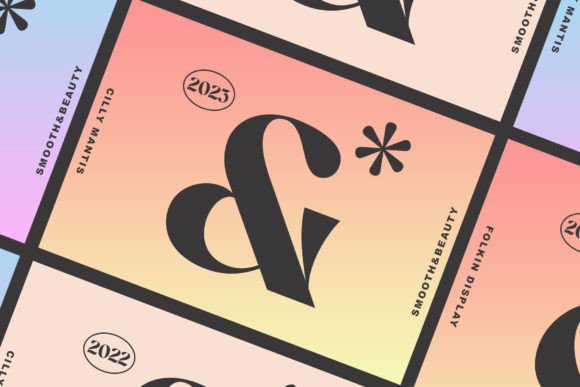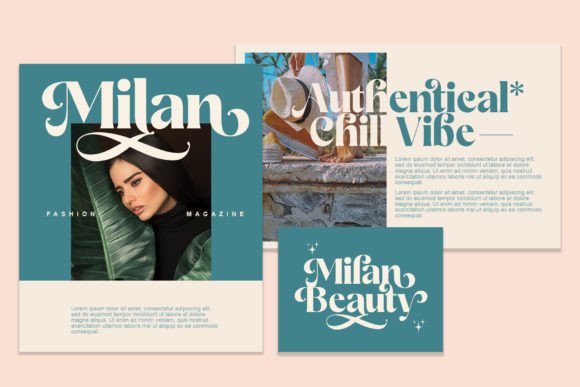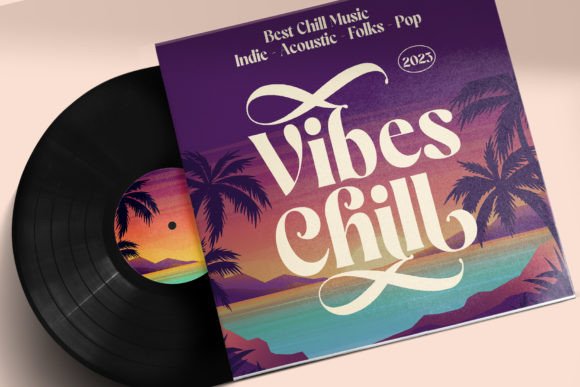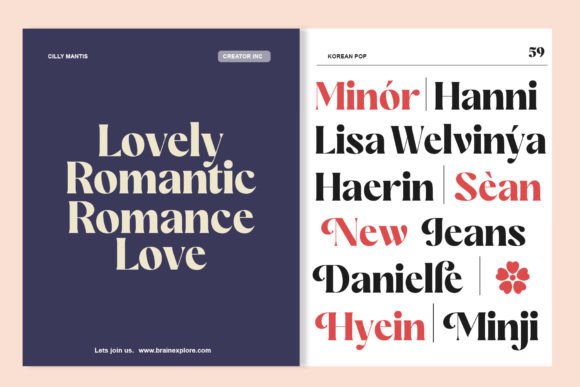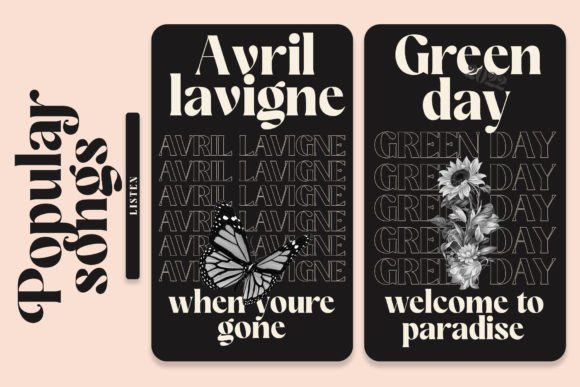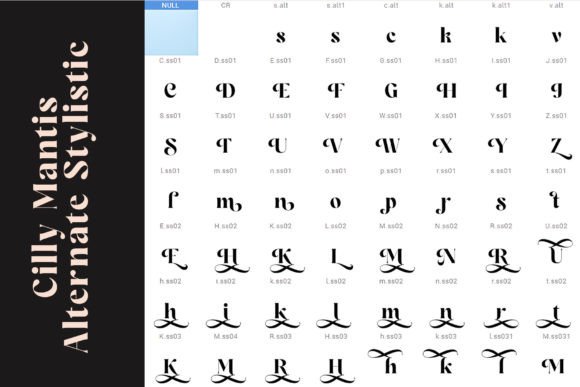
Unleash Your Creativity with the Perfect Font
Have you ever stared at a blank page, struggling to find the perfect font to bring your design to life? We’ve all been there – the blank page staring back at us, taunting us with its emptiness. But what if I told you that there’s a font that can change all that? Introducing the Cilly Mantis Font, a chic serif display font that exudes style and sophistication.
This beautiful font is designed to elevate your modern design projects, from branding to packaging and editorial design. With its clean lines and bold letterforms, Cilly Mantis Font creates a stunning contrast that’s sure to grab attention. Whether you’re a seasoned designer or just starting out, this font is a valuable addition to your toolkit, offering a level of sophistication and elegance that’s hard to find elsewhere.
Cilly Mantis Font Key Features
- Font Family: Cilly Mantis Font
- Unique Characteristics: Elegant, whimsical design with intricate details; perfect for creative projects, invitations, and packaging
Cilly Mantis Font Review
Overall, I have mixed feelings about the Cilly Mantis font. There are some aspects that I appreciate, but there are also some limitations that prevent it from being a top-tier font.
- The unique and quirky design of the font makes it stand out from more traditional sans-serif fonts.
- The bold and playful feel of the font is perfect for projects that require a lighthearted and approachable tone.
- The font’s flexibility in terms of size and weight makes it versatile and easy to work with.
- The font’s irregular letterforms and unusual shapes can make it difficult to read at small sizes or in low-resolution environments.
- The font’s quirkiness may not be suitable for all types of projects or audiences, particularly those that require a more formal or professional tone.
- The font’s limited character set and lack of italics may make it less useful for projects that require a lot of customization or special characters.
While the Cilly Mantis font has some unique strengths, its limitations prevent it from being a go-to font for most projects. However, for the right type of project or audience, it can be a great choice. I would recommend it for projects that require a playful and lighthearted tone, but not for projects that require a more formal or professional feel.
The Cilly Mantis Font is ideal for:
- Designing children’s books and educational materials.
- Creating playful and whimsical branding materials.
- Adding a touch of personality to wedding invitations and stationery.